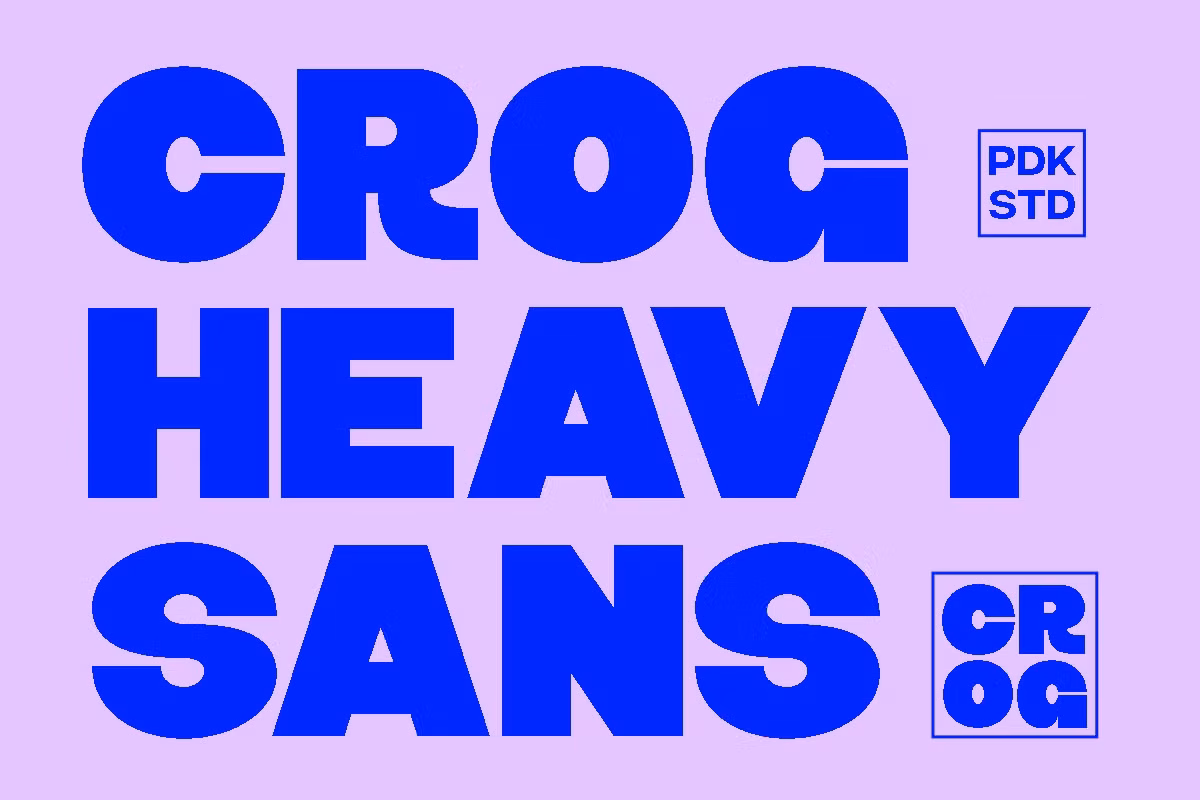
Crog - Chunky Heavy Sans Free Download
Crog Font Free Download is a bold, chunky heavy sans-serif typeface built to make a loud and lasting impression. With its thick strokes, strong geometric shapes, and playful energy, Crog is perfect for poster design, bold branding, packaging, streetwear, headlines, and eye-catching social media graphics.
Designed to command attention, Crog Font Free Download is ideal for projects that need maximum impact. Its heavy weight and confident form make it a go-to choice for display use, especially where visibility and personality are key. From bold logos to vibrant event flyers, Crog delivers with power and style.
This font doesn’t whisper—it shouts. Its versatility makes it perfect for both modern and retro-inspired designs, allowing you to create unique visuals that are both fun and professional.